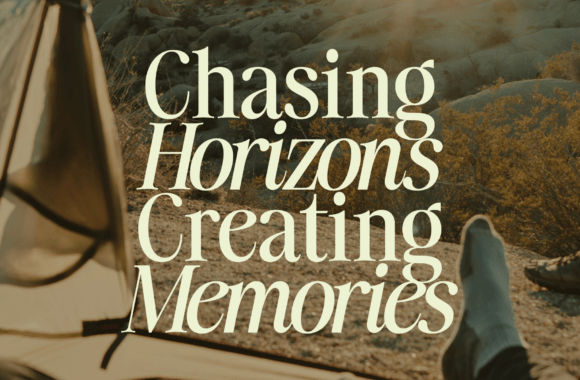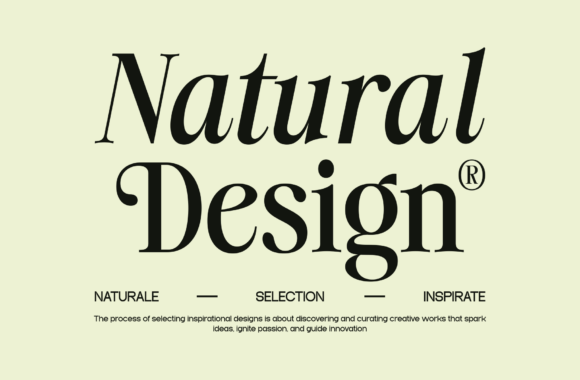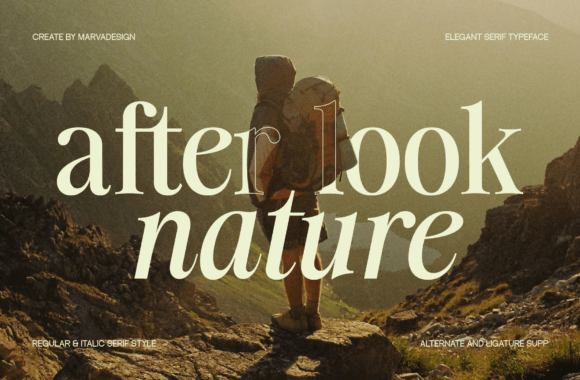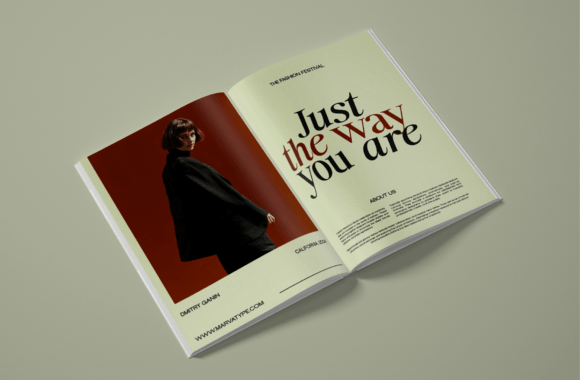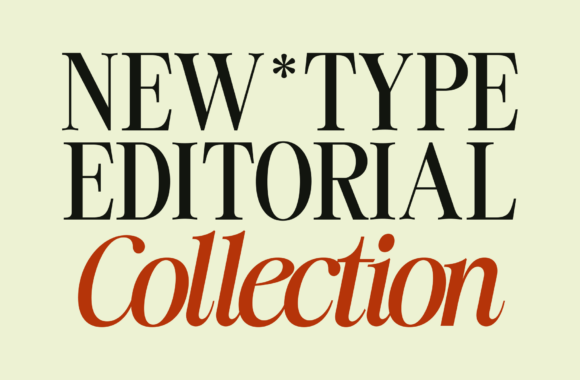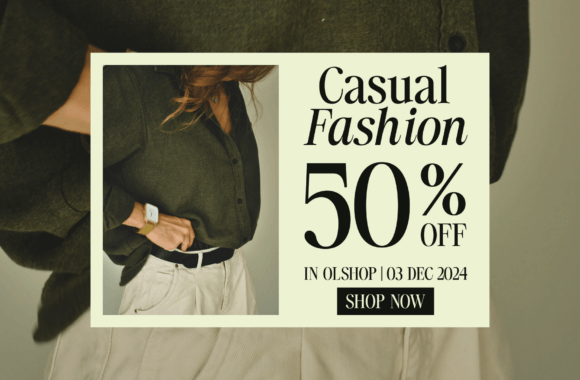
Introduction to Noefire Font
Have you ever stared at a blank canvas, eager to bring a creative project to life, only to be overwhelmed by the endless possibilities of typography? As designers, we’ve all been there. But what if I told you that there’s a font that can simplify your design process, while elevating your project to new heights? Enter the Noefire Font, a sophisticated serif font that seamlessly blends modern elegance with a touch of classic charm.
Noefire Font is more than just a font – it’s a design resource that can add a level of professionalism and style to any project. Its clean lines and refined details make it a versatile choice, suitable for branding, product packaging, posters, magazines, or digital content. With both regular and italic styles available, the Noefire Font offers endless possibilities for creative expression.
Key Features of Noefire Font
- High-quality, professional font designed for creative projects, offering a unique and modern aesthetic.
- Unique characteristics include a bold and edgy design, making it ideal for use in graphic design, typography, and other creative applications.
- Perfect for designers looking for a high-quality, free design resource to elevate their creative projects.
Honest Review: Noefire Font
I recently had the chance to work with the Noefire Font, and I must say it’s been a game-changer for my creative projects. The high quality and versatility of this font have made it a go-to choice for me and my team.
- ✨ High-quality design: The Noefire Font is incredibly detailed and looks amazing in both print and digital formats.
- ✨ Transparent background: The transparent background option is a huge plus for designers who need to work with images or other graphics.
- ⚠️ Limited font styles: While the Noefire Font is incredibly versatile, it’s not available in as many styles as some other fonts.
- ⚠️ Not suitable for complex text: Due to its high level of detail, the Noefire Font may not be the best choice for complex text or large blocks of text.
Overall, I’m thoroughly impressed with the Noefire Font and would highly recommend it to designers looking for a high-quality, free design resource.
Common Use Cases for the Noefire Font
The Noefire Font is a versatile design resource that can be used in a variety of creative projects, including logos, social media graphics, and presentations.
Tips for Getting the Most Out of the Noefire Font
To get the most out of the Noefire Font, be sure to experiment with different font sizes, colors, and combinations of fonts to create unique and eye-catching designs.